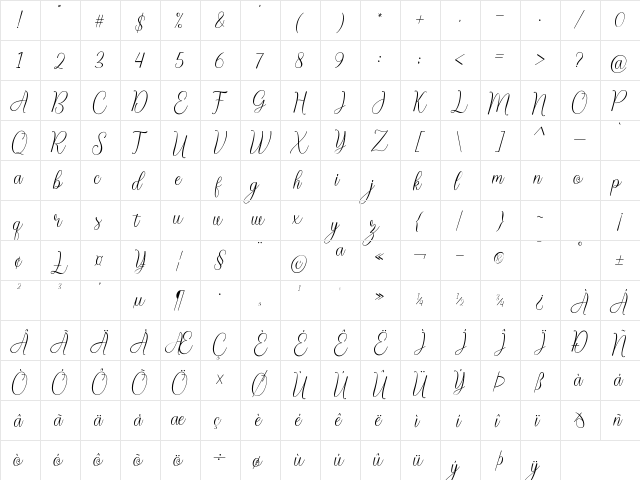
Belakonte Regular
| Foundry | Toni Studio |
| Designer | Fatoni Nurman |
Design Context for Belakonte Typeface
Belakonte is a composed and adaptable typeface that performs quietly and consistently across a wide range of design contexts.